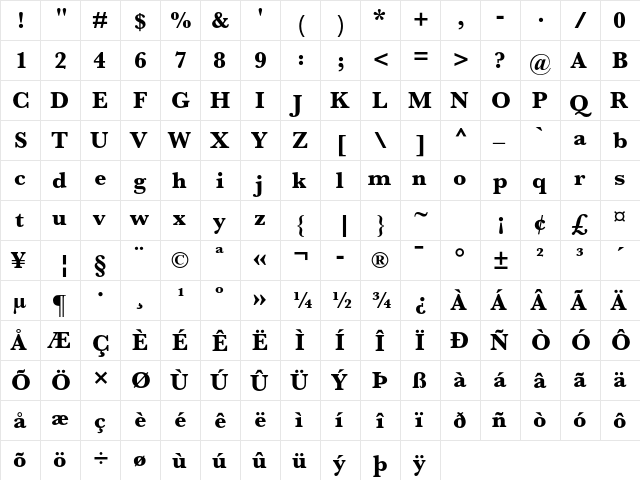
Baskerville MT Std Bold Font Preview
Baskerville MT Std Bold
Baskerville MT Std Bold Font Details
Design Context for Baskerville MT Std Typeface
Baskerville MT Std is a composed and adaptable typeface that performs quietly and consistently across a wide range of design contexts. The heavy weight commands attention and anchors typographic hierarchies.